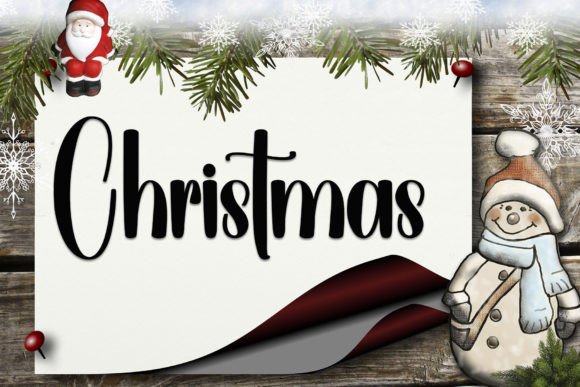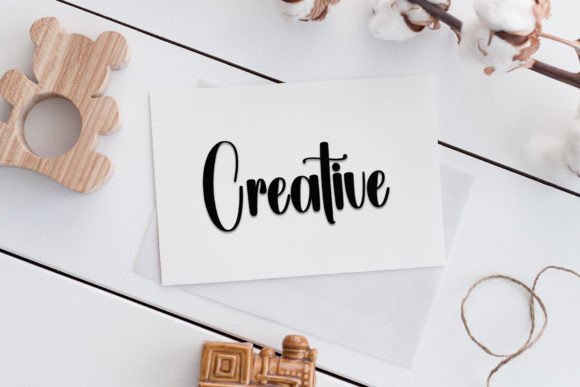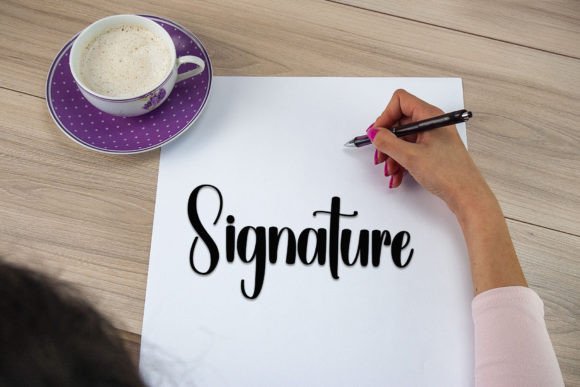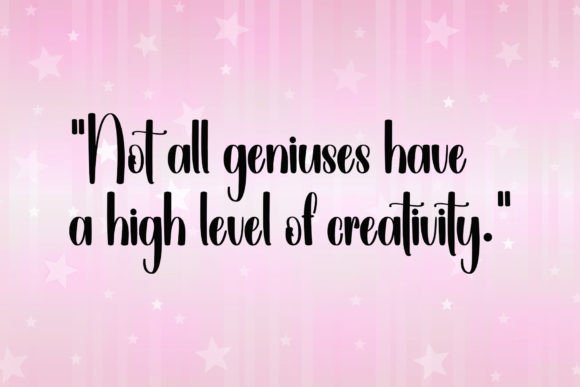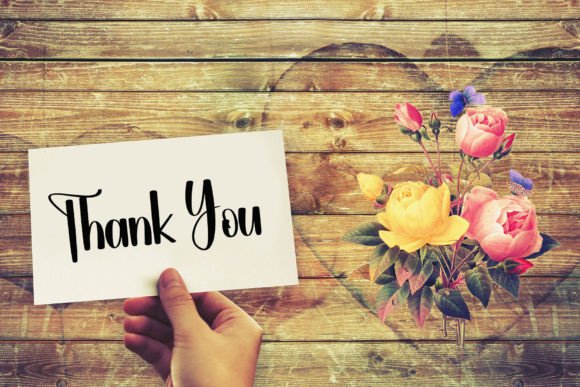
Baby Boy Font: A Sweet and Cursive Handwritten Font for Your Design Projects
Are you looking for a font that can add a touch of sweetness and romance to your design projects? Look no further than the Baby Boy font! This beautiful, cursive handwritten font is perfect for a variety of design ideas, from baby shower invitations to wedding stationery, and everything in between.
What is Baby Boy Font?
Baby Boy font is a sweet and cursive handwritten font that is designed to bring a joyful and romantic touch to your projects. Its gentle and flowing lines make it perfect for creating beautiful and eye-catching designs. Whether you’re a designer, crafter, or DIY enthusiast, this font is sure to become a favorite in your collection.
Features of Baby Boy Font
So, what makes Baby Boy font so special? Here are just a few of its key features:
- Sweet and Cursive: Baby Boy font is a beautifully designed cursive font that is sure to add a touch of sweetness to your projects.
- Handwritten: This font is designed to look like it was written by hand, giving it a personal and unique touch.
- Versatile: Baby Boy font can be used for a wide range of design projects, from baby shower invitations to wedding stationery, and everything in between.
- Easy to Read: Despite its cursive nature, Baby Boy font is easy to read, making it perfect for use in body text as well as headings.
Uses for Baby Boy Font
So, what can you use Baby Boy font for? The possibilities are endless! Here are a few ideas to get you started:
- Baby Shower Invitations: Create beautiful and personalized baby shower invitations with Baby Boy font.
- Wedding Stationery: Use Baby Boy font to create romantic and elegant wedding stationery, including invitations, place cards, and thank you cards.
- Children’s Party Invitations: Create fun and playful children’s party invitations with Baby Boy font.
- DIY Crafts: Use Baby Boy font to add a personal touch to your DIY crafts, such as scrapbooking, card making, and iron-on designs.
Tips for Using Baby Boy Font
Here are a few tips for getting the most out of Baby Boy font:
- Use it with Other Fonts: Baby Boy font pairs well with a variety of other fonts, including sans serif fonts and script fonts.
- Experiment with Colors: Try using Baby Boy font with different colors and textures to add depth and interest to your designs.
- Pay Attention to Size: Make sure to adjust the size of Baby Boy font to fit your design needs. It can be used for both large headings and smaller body text.
In conclusion, Baby Boy font is a beautiful and versatile font that is perfect for a wide range of design projects. Its sweet and cursive handwritten design makes it sure to add a joyful and romantic touch to your projects. Whether you’re a designer, crafter, or DIY enthusiast, Baby Boy font is a great addition to your font collection.